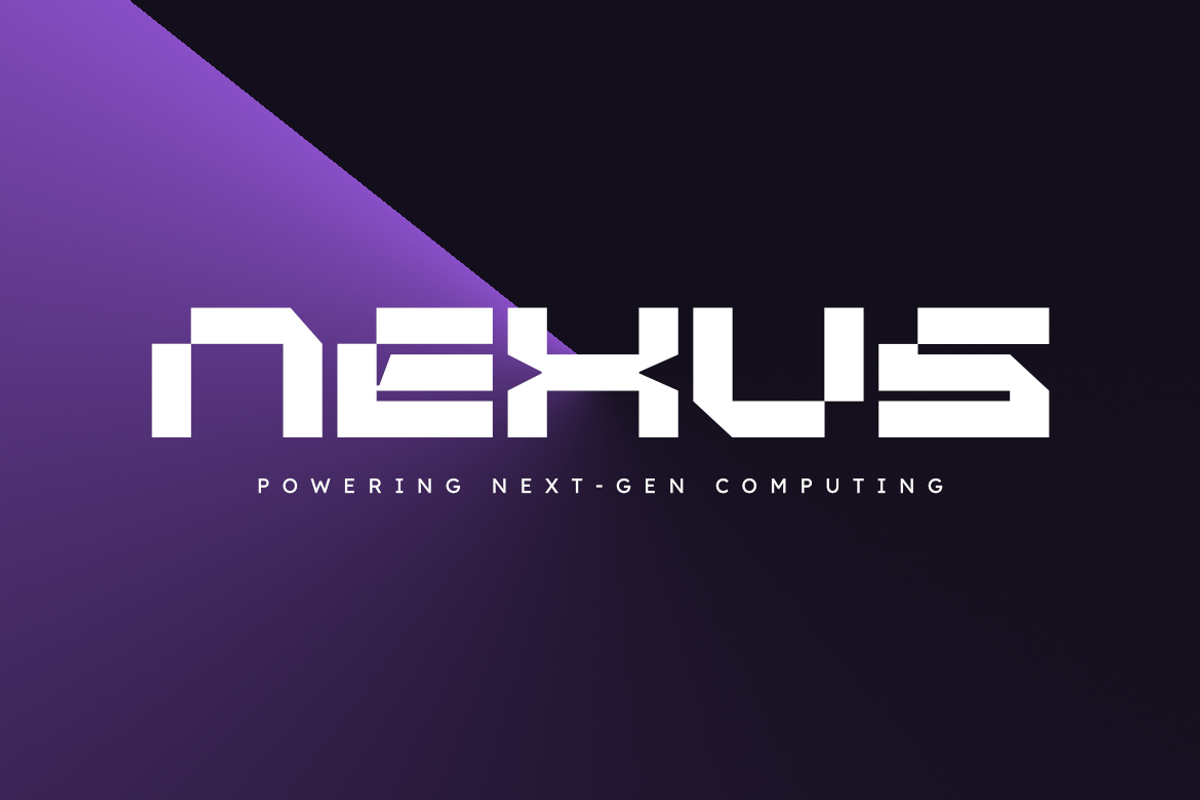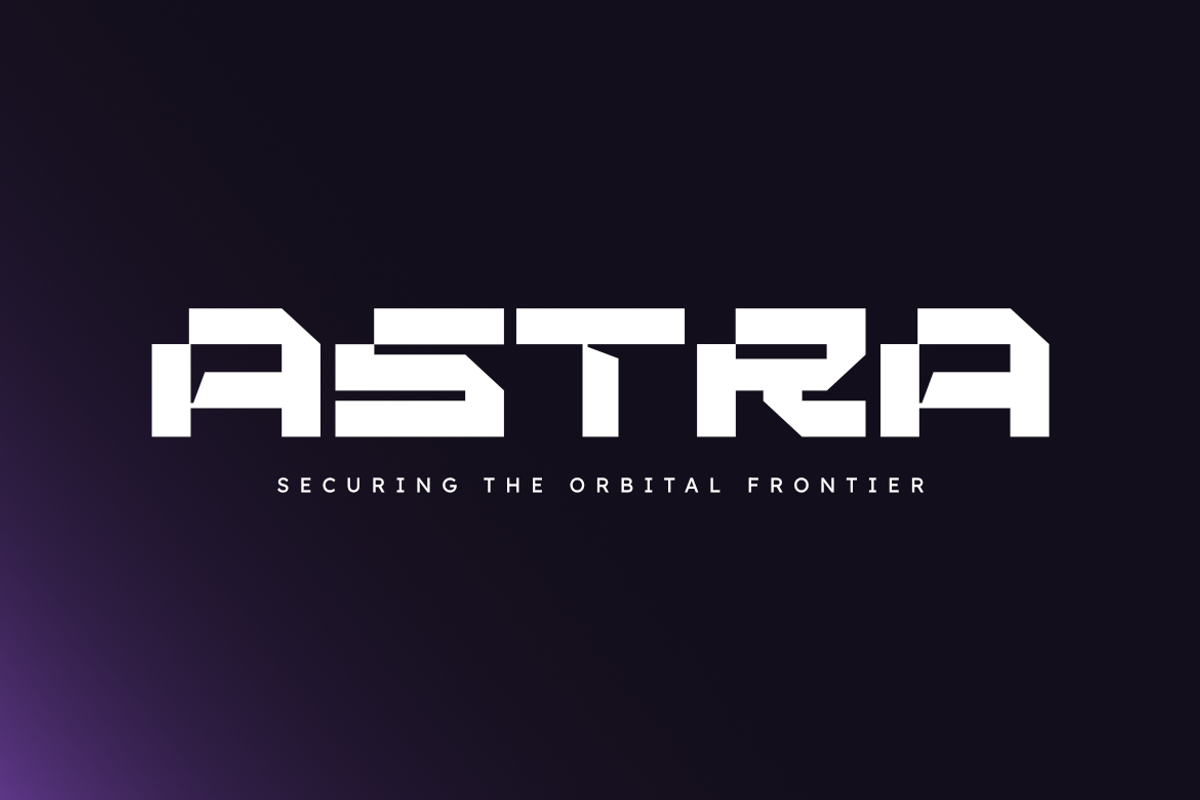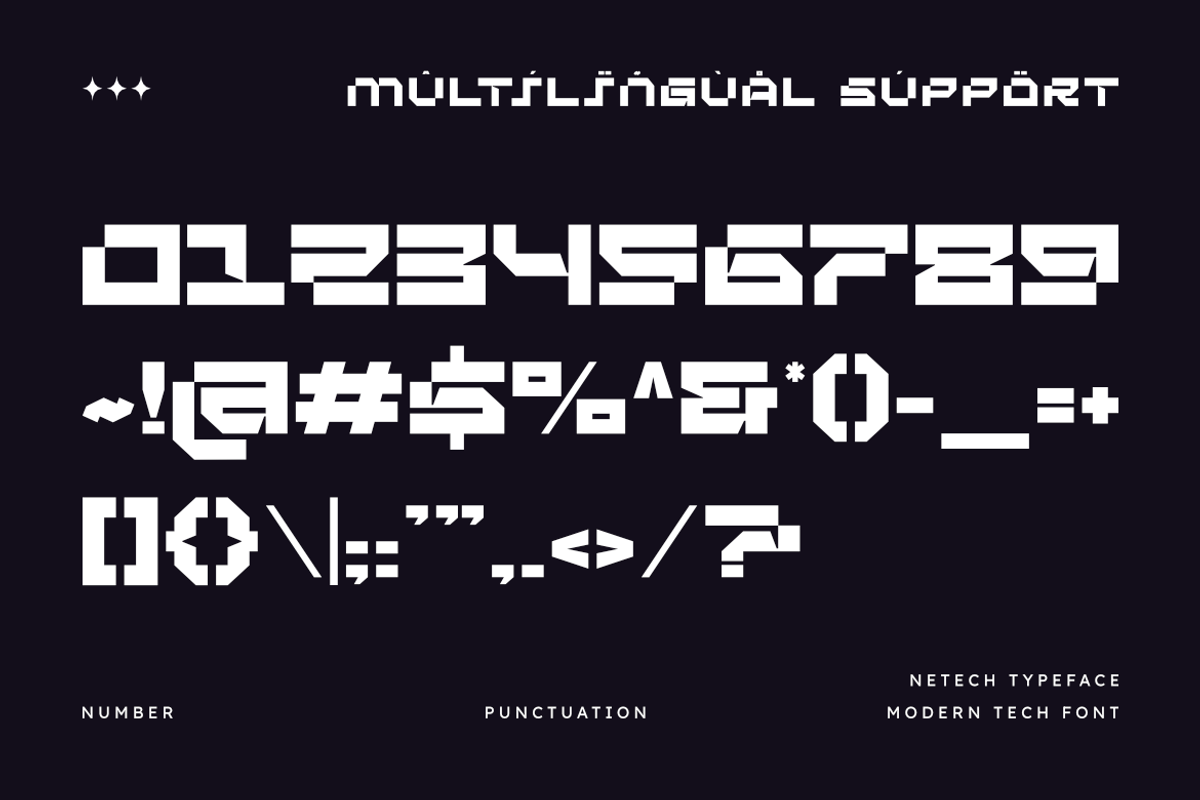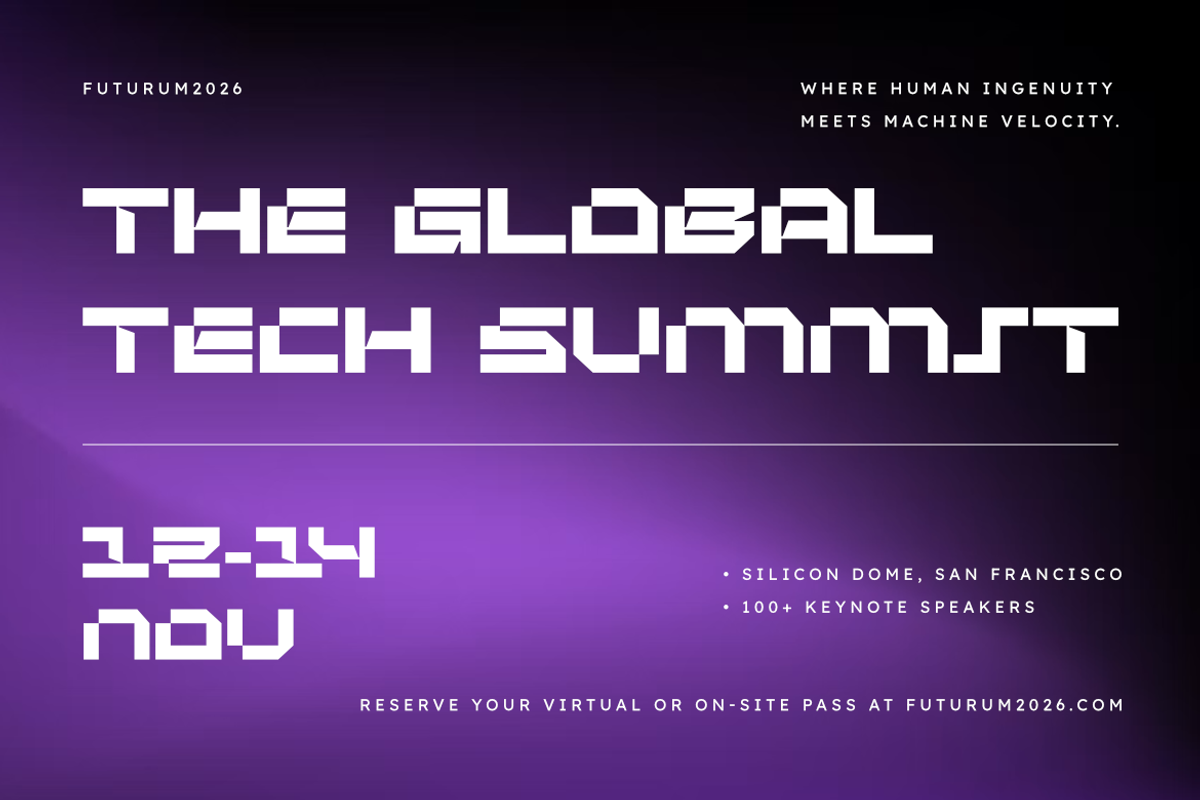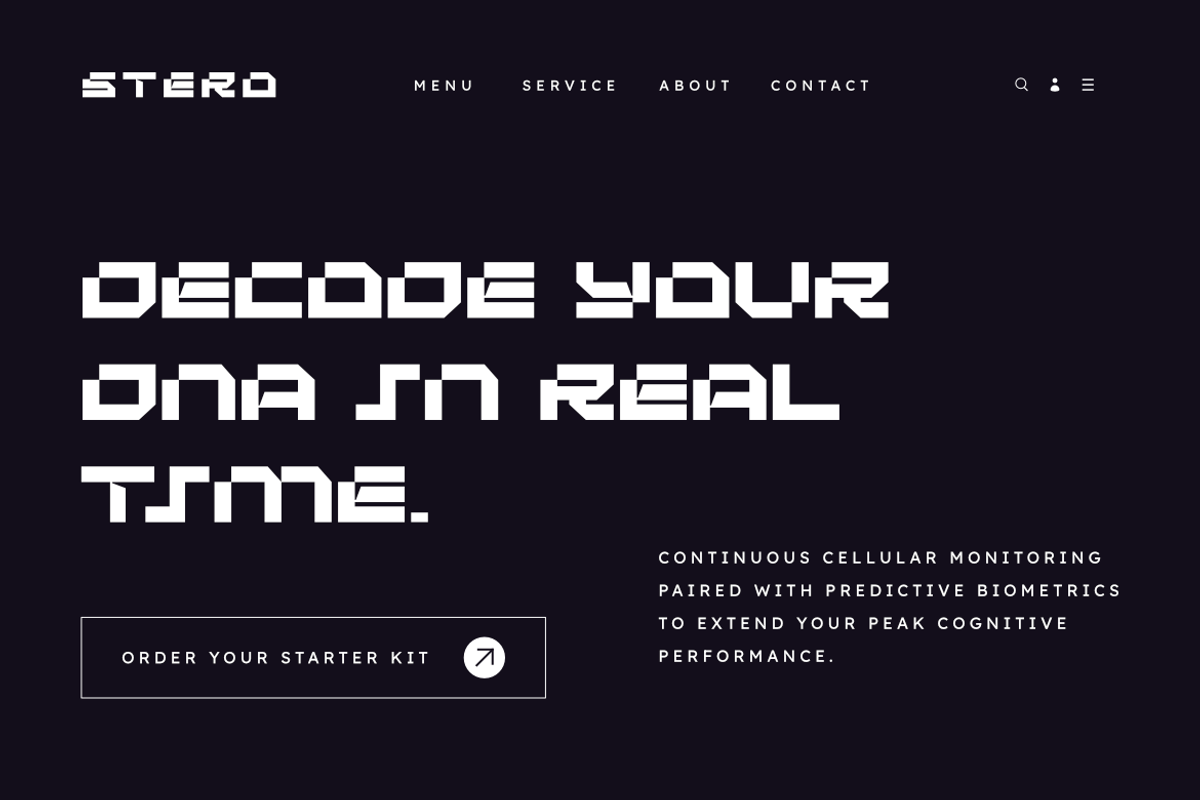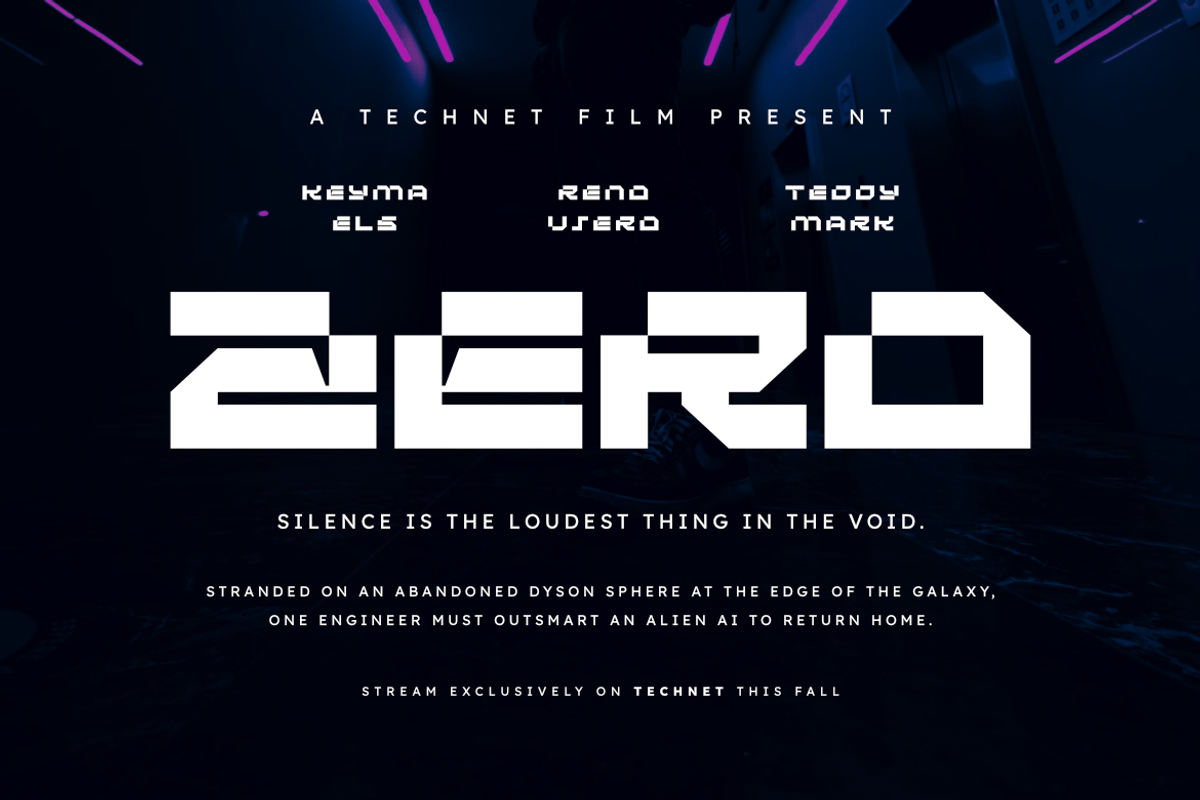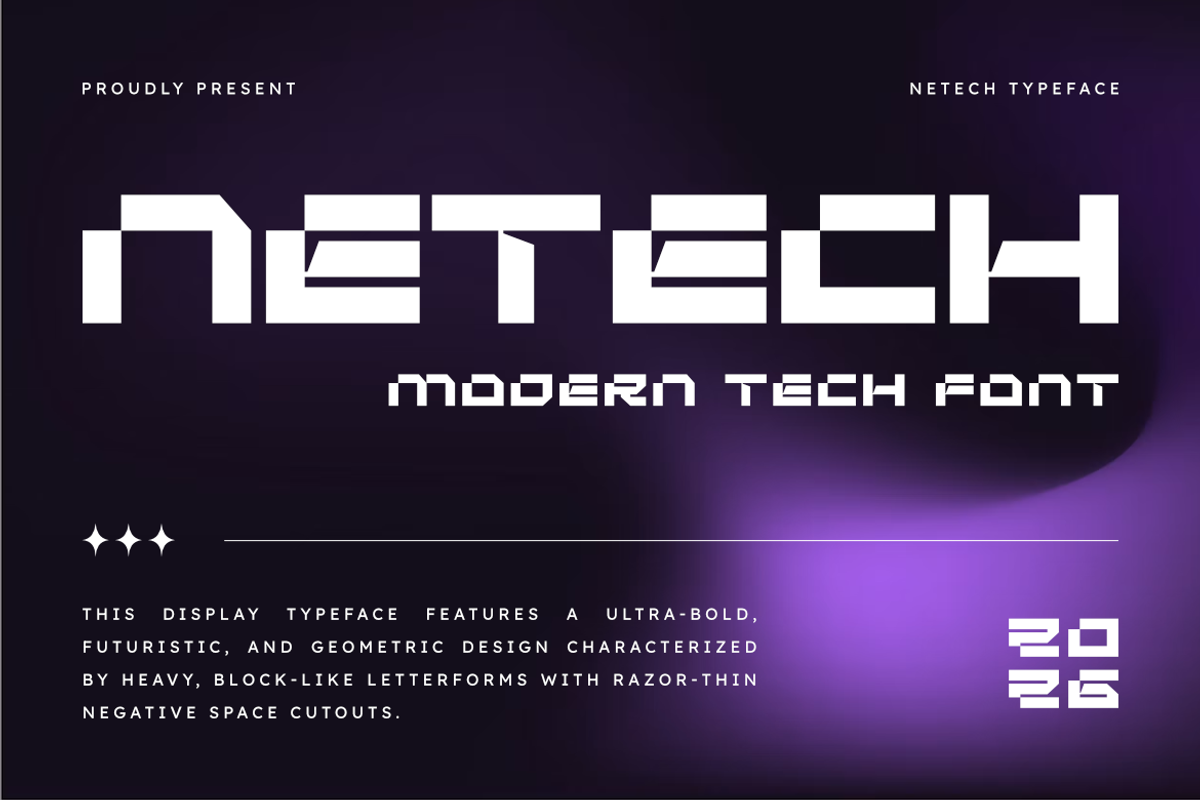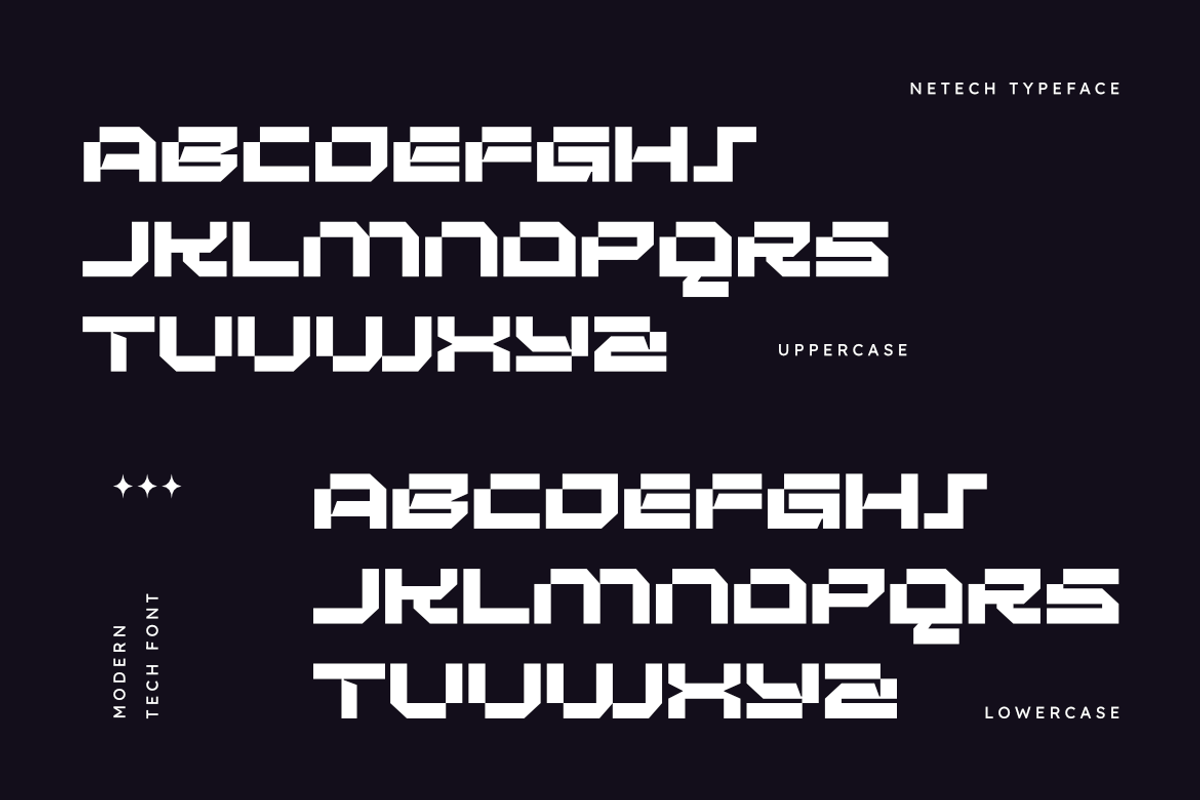
Netech - Modern Futuristic Tech Font
Netech is a modern futuristic display font built around ultra-bold geometric forms, heavy block-like letterforms, and razor-thin negative space cuts. Its distinctive construction creates a strong technological aesthetic with a sharp, modular, and contemporary visual character.
Designed for high-impact typography, Netech combines solid geometric shapes with unusual internal cutouts to create a futuristic appearance that immediately captures attention. Its bold structure works especially well for large headlines, logos, technology branding, gaming visuals, digital interfaces, posters, and modern promotional graphics.
Whether you're building a futuristic brand identity, developing a digital product, creating a gaming visual, or designing a bold headline composition, Netech brings a strong technological personality to your typography.
Uppercase Letters
Ultra-Bold Letterforms
Geometric Construction
Futuristic Display Style
Modular Letter Shapes
Negative Space Details
Technology Branding
Futuristic Logos
Gaming Identity
Digital Products
Tech Startup Branding
UI/UX Visuals
Cyberpunk Graphics
Sci-Fi Titles
Modern Posters
Digital Campaigns
App Branding
Creative Headlines